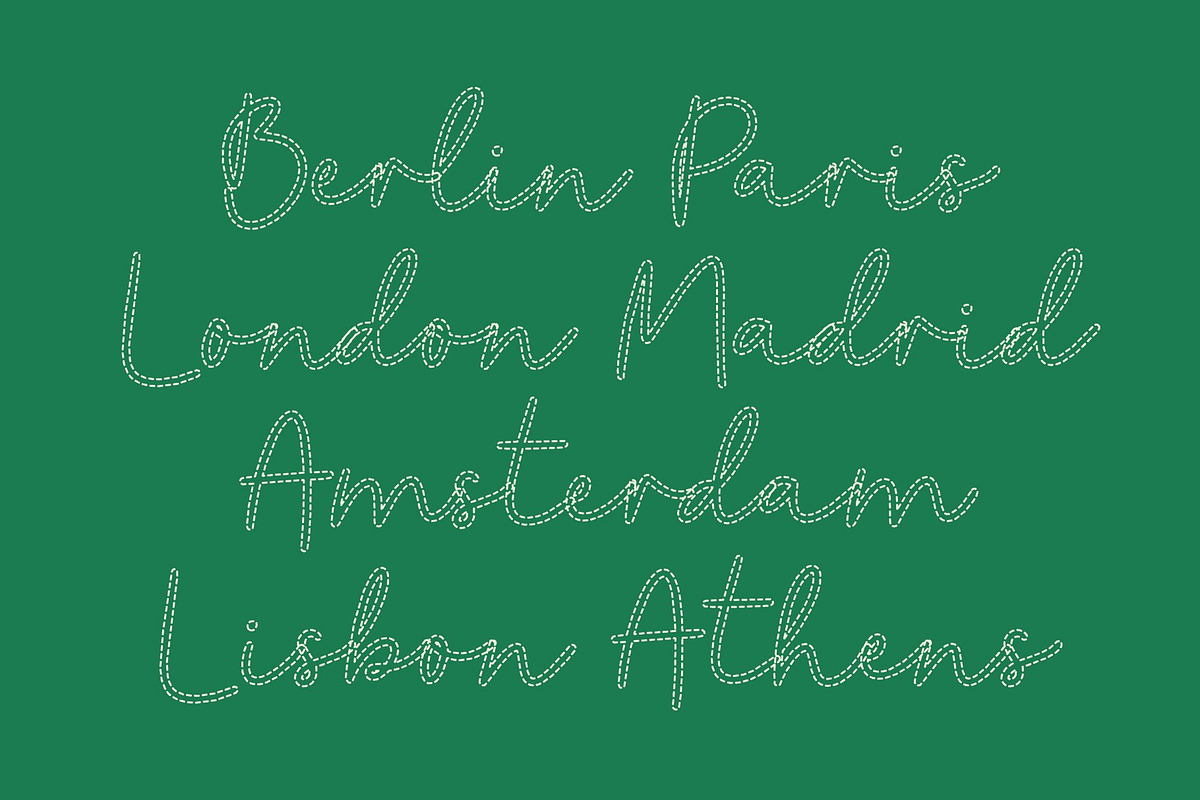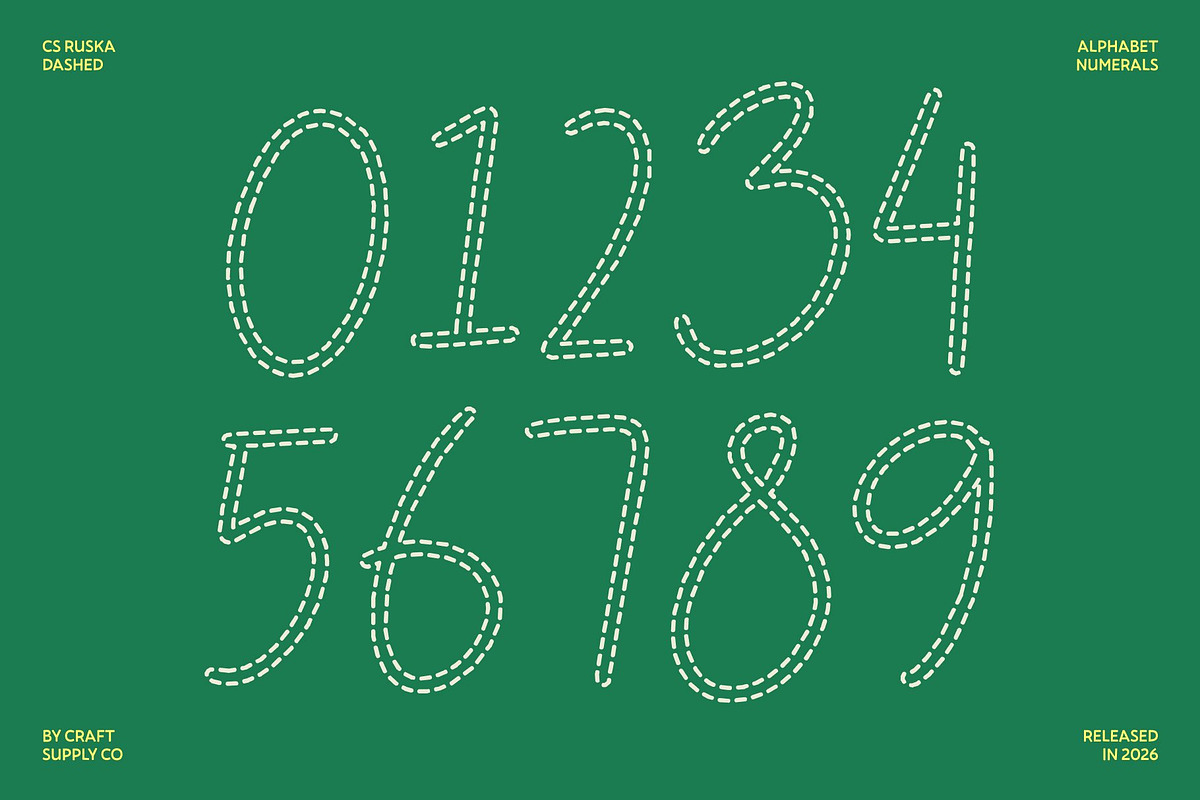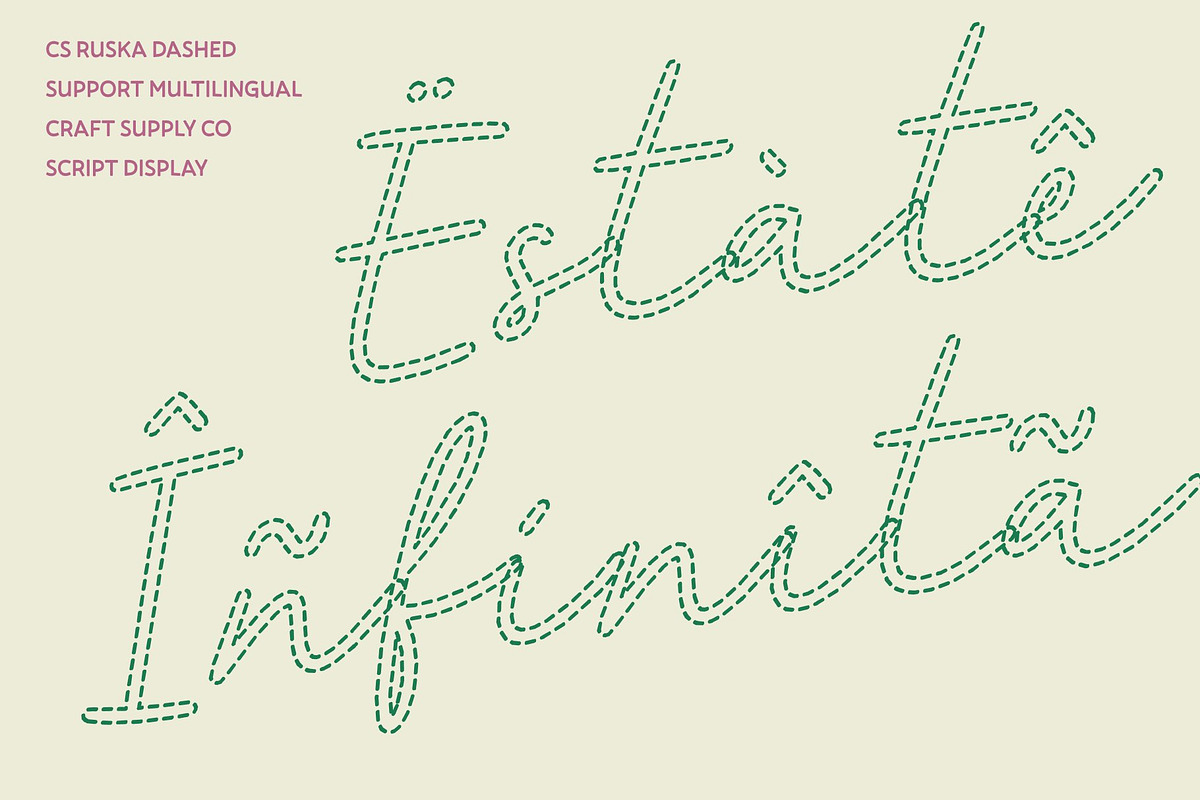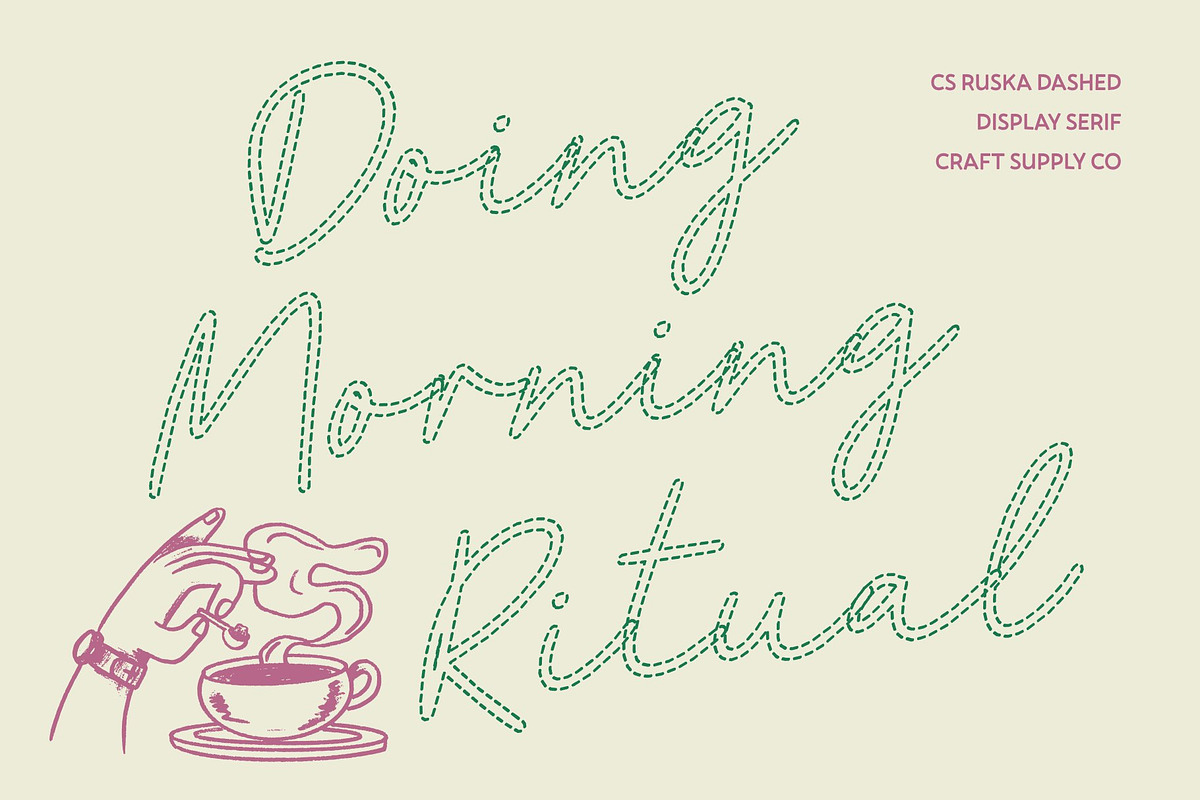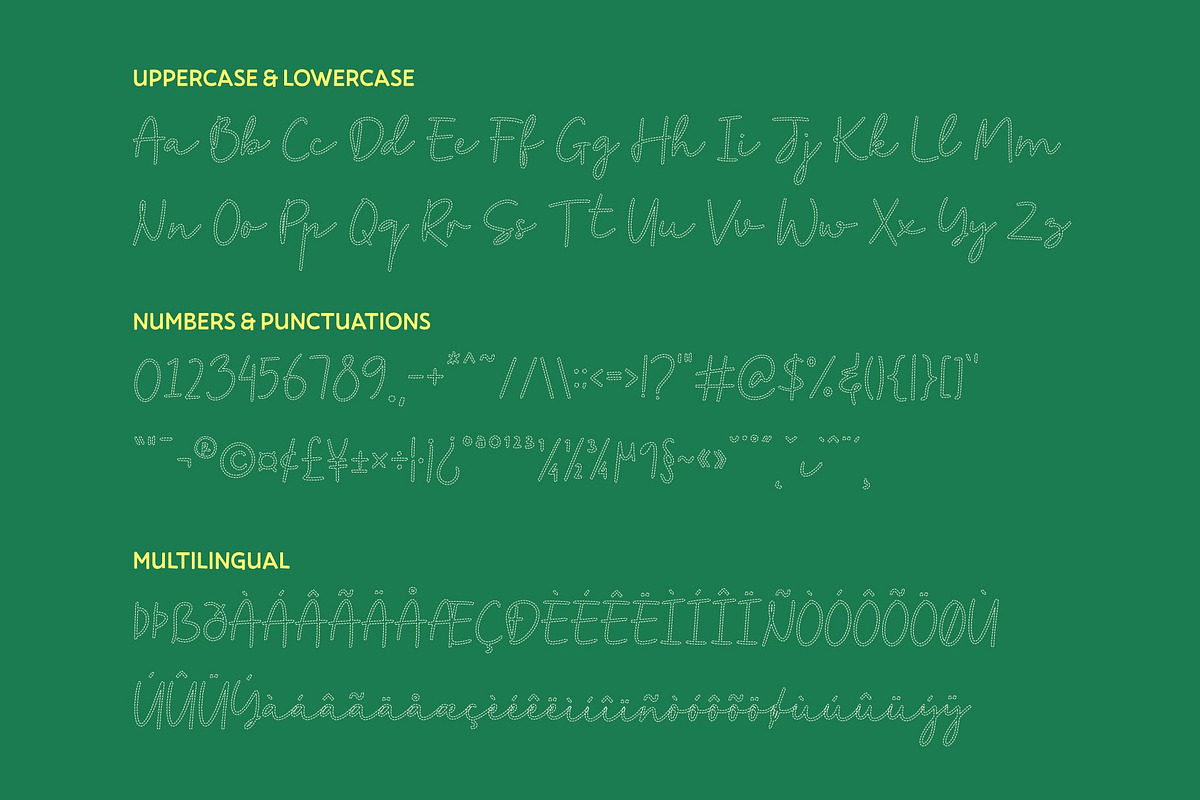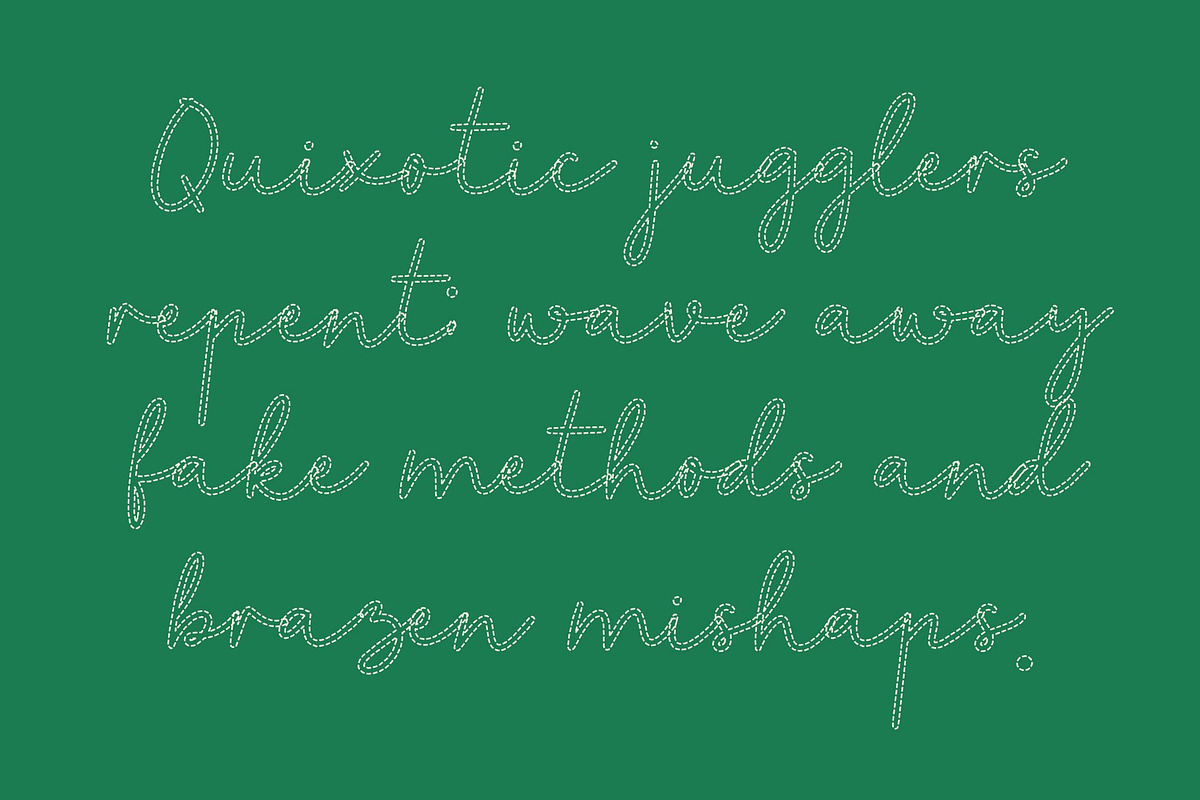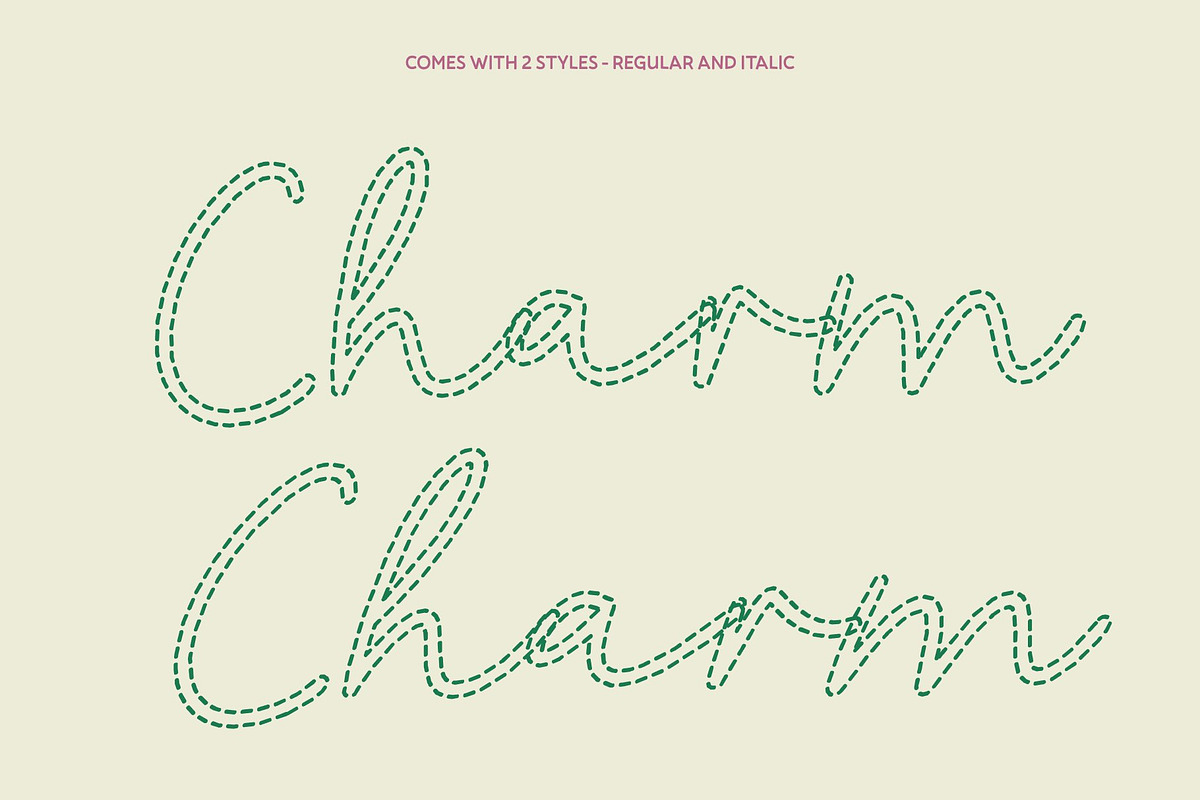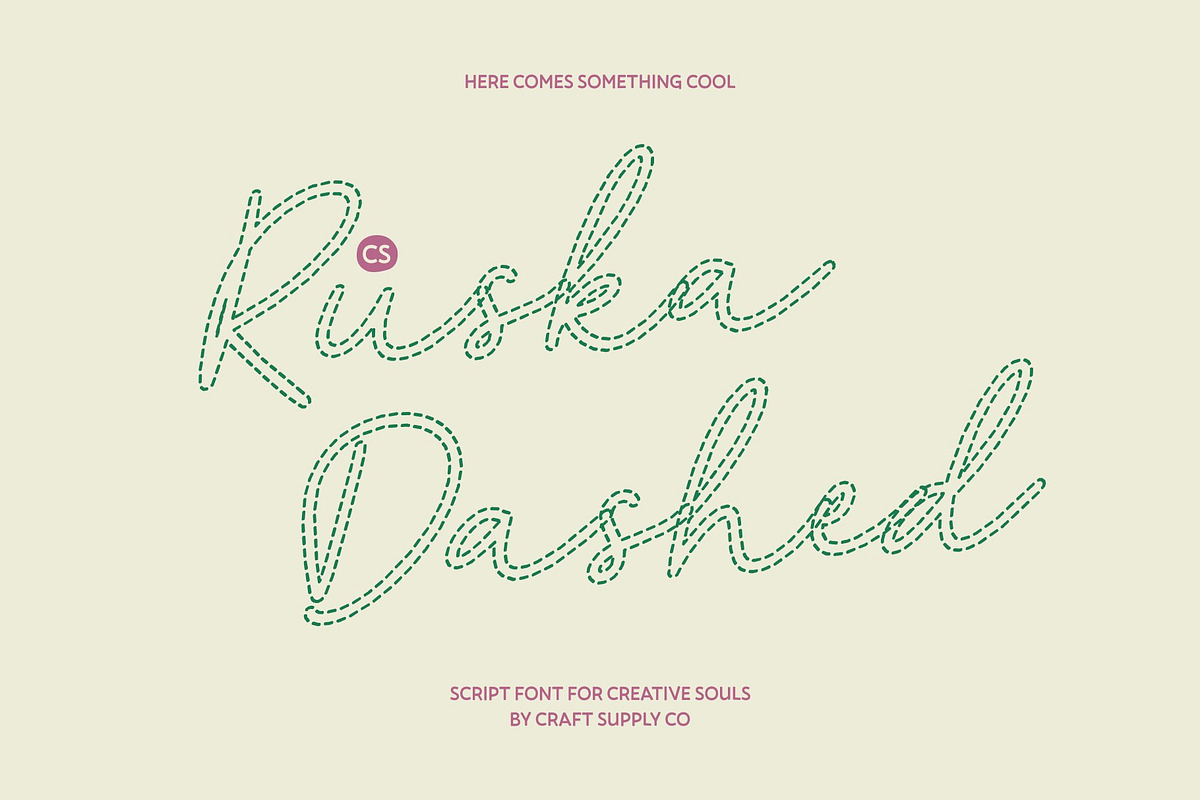
CS Ruska Dashed
CS Ruska Dashed – Script Font with Mediterranean Elegance
Romantic Script with Timeless Charm This is a romantic script font that flows gracefully, capturing the essence of Mediterranean beauty and sophistication. Its dashed strokes introduce a light handcrafted texture that softens the elegant script, creating a refined yet artistic presence that feels warm and timeless.
Elegant Flow and Natural Movement Every curve is designed to create seamless rhythm and harmony between letters. The flowing forms, gentle contrast, and dashed detailing give the font a natural handwritten grace perfect for projects that need beauty, personality, and a subtle handcrafted touch.
Italian Sophistication in Every Detail Inspired by classic Italian aesthetics, this font embodies confidence, romance, and artistic flair. Balanced proportions and graceful ligatures ensure it works beautifully in premium designs while maintaining an inviting and approachable character.
Perfect for Refined and Luxurious Designs Ideal for branding, wedding invitations, packaging, editorials, and luxury products, this font elevates every layout with elegant movement and Mediterranean charm. Its stylish flow and delicate dashed texture make it a perfect choice for projects that seek romance, sophistication, and timeless beauty.
CS Ruska Dashed Regular
CS Ruska Dashed Italic